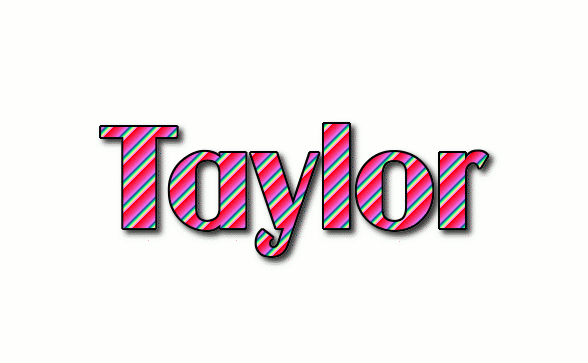
Taylor In Different Fonts
Taylor In Different Fonts. Brands that use sans serifs: Create text that is italicized.
Designer Rizal Khurasan ’S Bold Script Font Is One Of The Most Popular From The Last Couple Of.
Oct 04, 2014 at 12:06. This isn't a font, probably taylor's handwriting. Here is the list of different fonts style and their names.
A Casual Script Font Released In March 2021 By Maulana Creative.
Brands that use sans serifs: Each has different purposes and common uses among designers. Simply copy & paste text
Create Text That Is Italicized.